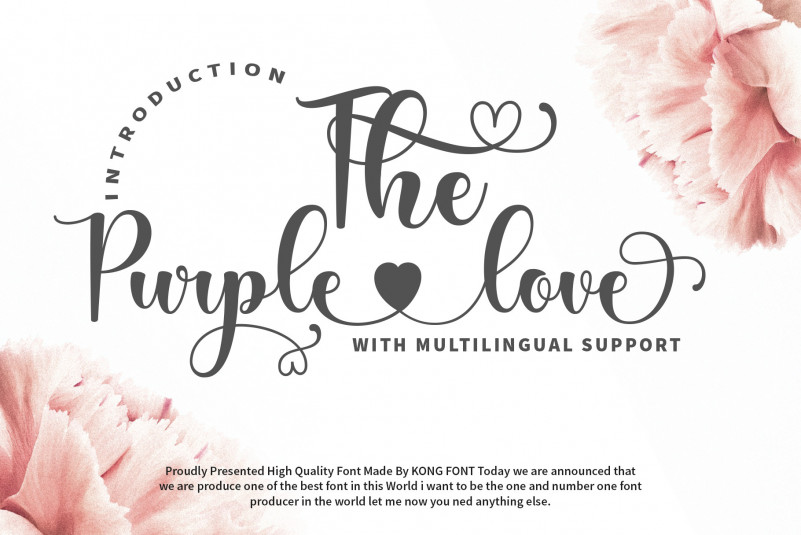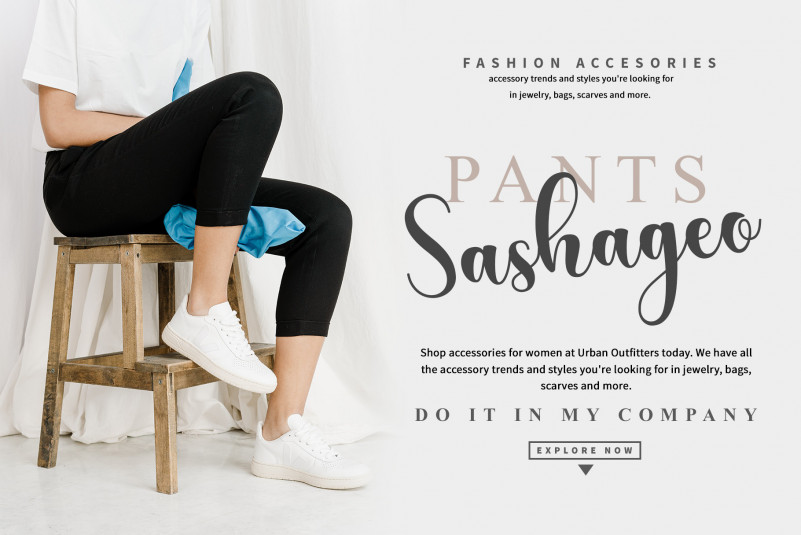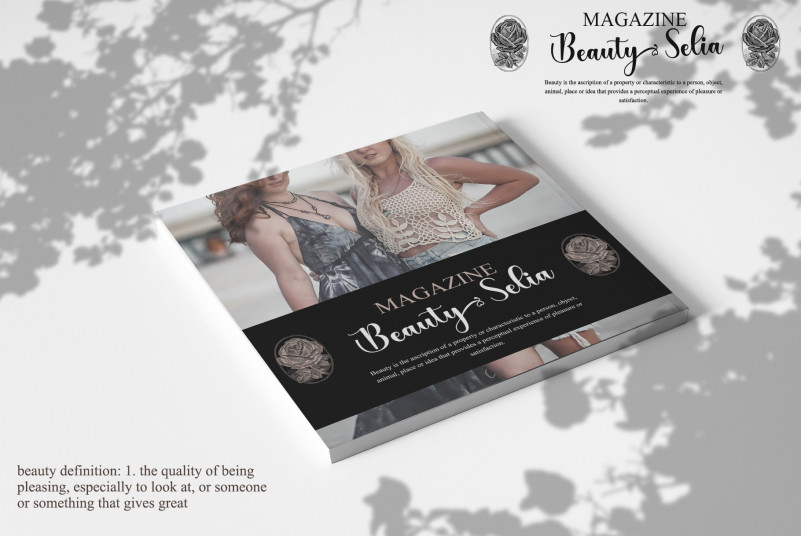
Seulanga Script Font
Seulanga is an elegant handwritten stylish calligraphy font. It can be easily used for various creative projects like logos, wedding invitations, t-shirts, posters, etc.